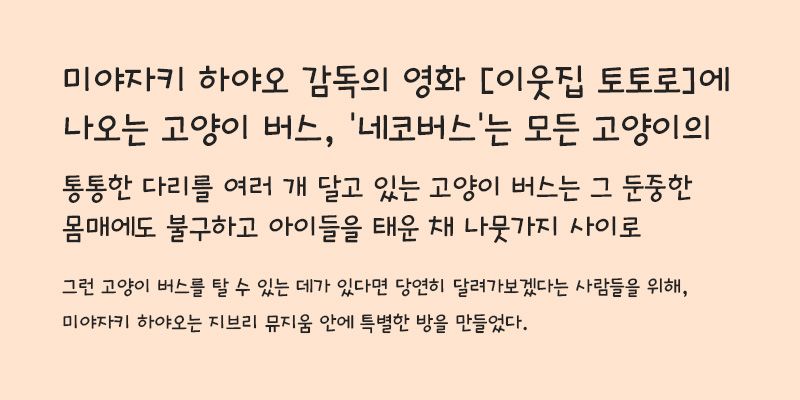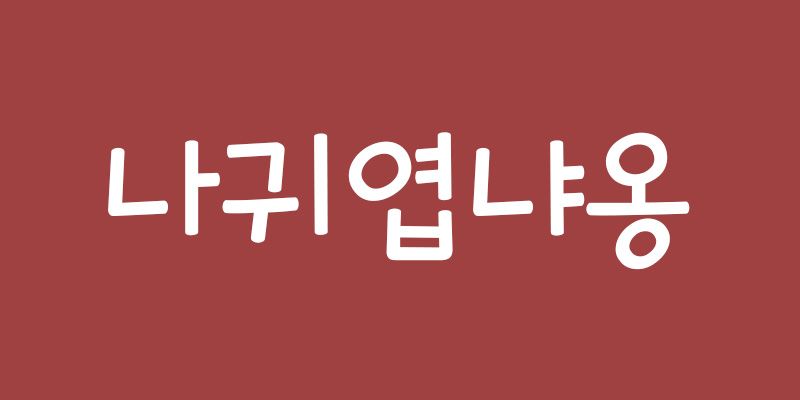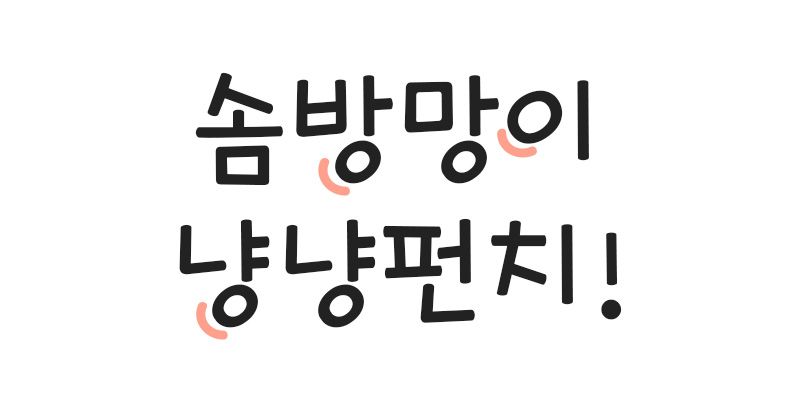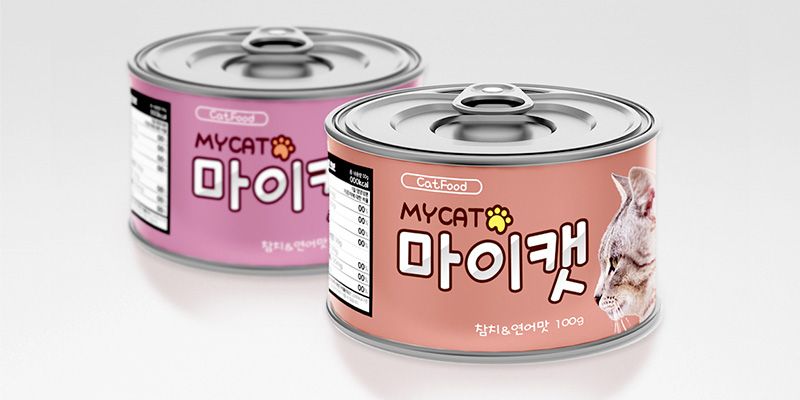
RixCuteCat is inspired by cats that seem uppity but also laid back with a fat belly.
The round and straight characters that give off a charming feel make the handwritten font a lovely atmosphere.